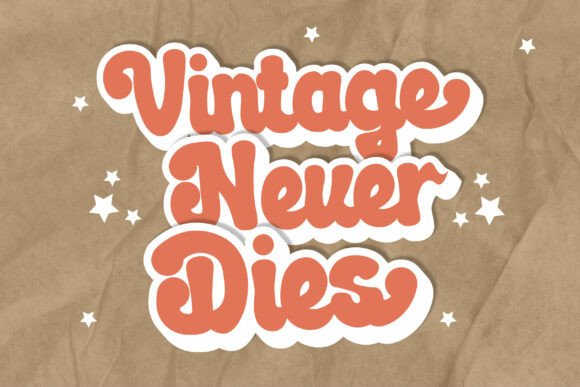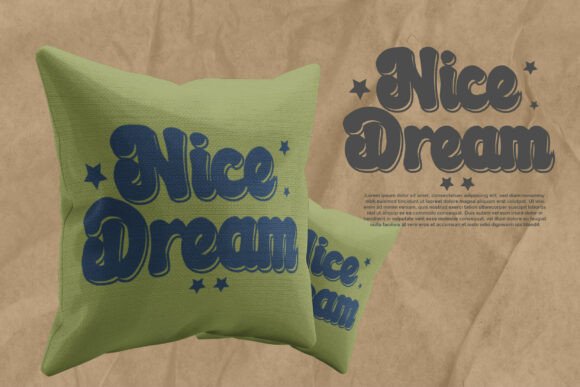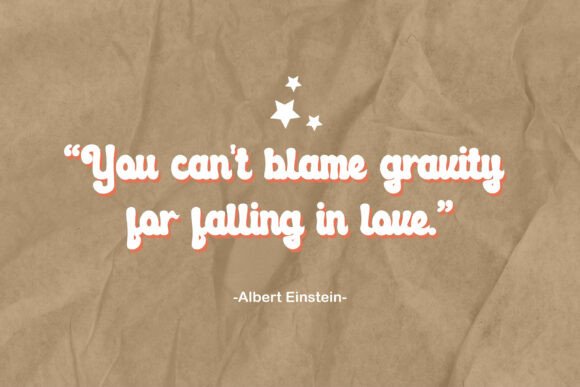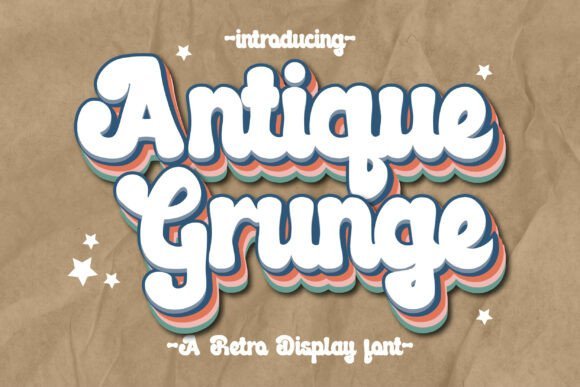
Introduction to Antique Grunge Font
Antique Grunge is a timeless, vintage-style script font.
Use it to add a special retro touch to your design ideas Step back into the nostalgic realm of yesteryears with Antique Grunge, a classic, vintage script font.
Why Choose Antique Grunge Font?
Antique Grunge Font offers exceptional quality and versatility, making it a valuable addition to your design toolkit. Whether you’re creating for personal projects or commercial use, Antique Grunge Font delivers professional results.